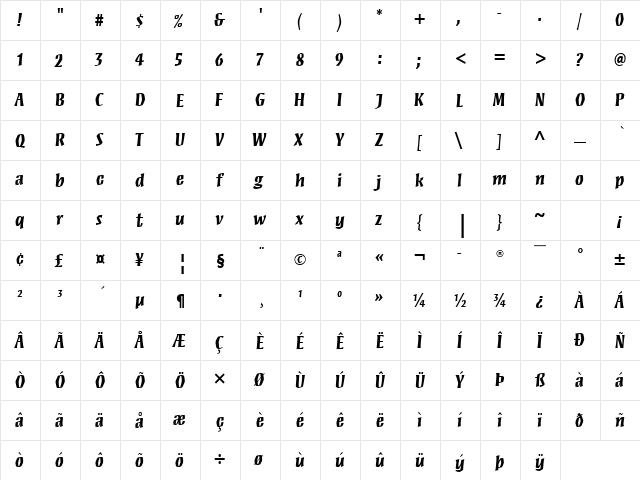
Mezz Web Bold Regular
| Foundry | Adobe Systems, Incorporated |
| Designer | Michael Harvey |
Design Context for Mezz Web Bold Typeface
Mezz Web Bold takes a measured approach to typography — its balanced proportions and neutral character make it a reliable workhorse for both digital and print work. Its bold stroke weight gives it real presence on the page.